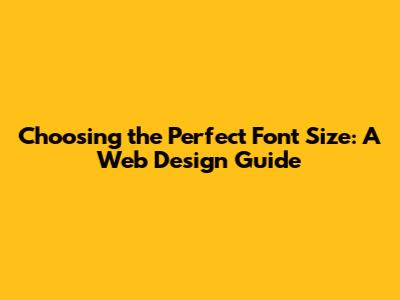
Hey there, web enthusiasts! Ever wondered about the best font size for website text? You're not alone! It's a crucial aspect of web design that directly impacts user experience and readability. Choosing the right font size isn't just about aesthetics; it's about making your website accessible, engaging, and easy to navigate. In this guide, we'll dive deep into the world of font sizes, exploring the factors that influence your choices and providing practical tips to ensure your website looks and feels amazing for everyone. Let's get started!
Why Font Size Matters: The Importance of Readability
Alright, guys, let's talk about why font size is such a big deal. The font size is critical for website text as it directly affects how easily your visitors can read and understand your content. Think about it: if the text is too small, users will strain their eyes, leading to frustration and a quick exit from your site. Conversely, if the text is too large, it can appear overwhelming and disrupt the visual flow of your page. The goal is to strike a balance, creating a comfortable reading experience that keeps your audience engaged. Font size directly impacts website readability.
Good readability is about more than just the size of the font, though. It also involves the font style, the amount of space between the lines (line height), and the space between individual letters (letter spacing). All of these combine to create the overall reading experience. When your website has good readability, the text is easy to scan, allowing visitors to quickly grasp the key information. This is particularly important in today's fast-paced digital world, where people often skim content rather than reading every word. If your text is easy to read, you'll improve user engagement, reduce bounce rates, and increase the likelihood of conversions. Furthermore, accessibility is a key factor. Websites should cater to visitors of all abilities, including those with visual impairments. Choosing an appropriate font size ensures that your website is inclusive and user-friendly for everyone. Remember, a website that prioritizes readability is a website that cares about its users. This focus will pay dividends in user satisfaction, search engine optimization (SEO), and ultimately, your website's success. It's not just about looking good; it's about making your content accessible, enjoyable, and effective.
The Impact on User Experience
Think about the last time you visited a website with tiny, hard-to-read text. Did you stick around, or did you bounce? User experience, or UX, is all about how people interact with your website. Font size is a foundational element of UX. When the font size is appropriate, it improves the overall UX. Large, easily readable text welcomes users, making them feel comfortable and encouraging them to explore your content. Poor font choices, such as using an overly small size or a difficult-to-read font, will quickly send users packing. The right font size helps guide the user's eye, making the content easy to scan and digest. This can lead to longer time on site, higher engagement, and better conversion rates. By prioritizing readability, you're essentially creating a more enjoyable and user-friendly experience, and a superior UX leads to positive brand perception and customer loyalty. It shows that you value your audience's time and are dedicated to providing a high-quality experience. On the other hand, the wrong font size can lead to eye strain, confusion, and a general feeling of frustration. This negative experience can drive users away, damaging your website's reputation and hurting your business goals.
Accessibility Considerations
Let's not forget about accessibility, another really important factor. Font size is also closely tied to website accessibility. Accessibility is about ensuring that your website is usable by everyone, including people with disabilities. Many people have visual impairments that make it difficult to read small text. By choosing an appropriate font size, you make your website accessible to a wider audience. This is not only the right thing to do ethically but it can also expand your reach and improve your SEO. Providing options for users to adjust the text size is another great idea. This can be as simple as allowing users to zoom in or providing a custom text size setting in your website's design. This ensures that users with different needs can easily customize the website to their preference. Accessibility is more than just a box to check; it is an important part of creating a truly inclusive and user-friendly website. You'll make your content available to a wider audience, improve user satisfaction, and uphold the principles of web inclusivity.
The Ideal Font Size: Best Practices and Recommendations
So, what's the magic number when it comes to the ideal font size for website text? While there isn't a one-size-fits-all answer, there are general best practices and recommendations that can guide your choices. The perfect font size depends on many factors, like the style of the font, the content, and the type of device your visitors use. The most commonly recommended size for body text is 16 pixels (px). This is a good starting point because it's generally readable on most devices without being too small or too large. However, there's a lot to consider. Let's delve in.
Body Text: 16px as a Starting Point
As previously mentioned, 16px is a widely accepted standard for body text. 16px font size is good for website readability. This is because it provides a good balance between readability and efficient use of space. It's large enough to be easily read by most users without requiring them to zoom in, while still allowing enough text to fit on the screen without excessive scrolling. This size is usually suitable for the main content paragraphs of your website. Keep in mind that this is just a starting point, and you may need to adjust the size slightly based on the font you choose. Some fonts appear smaller or larger than others at the same pixel size. Remember that the goal is to make your content as accessible and enjoyable to read as possible.
Headings: Establishing Hierarchy
Headings play a vital role in organizing your content and guiding the reader's eye. Using different sizes for your headings helps establish a clear visual hierarchy, making it easy for users to scan the page and quickly find the information they are looking for. Use heading to optimize your font size. For example, your H1 (main heading) might be around 24-32px, while H2 (subheadings) could be 18-24px, and H3 (further subheadings) could be 16-18px. The exact sizes will depend on the overall design and layout of your website. The goal is to create a clear and logical structure that makes your content easy to understand and navigate. Experiment with different sizes to find what looks best for your website. The consistency of font sizes across all pages will help improve overall usability. You want to make sure the structure is correct, so users can enjoy your content.
Mobile Considerations: Responsive Design
In today's mobile-first world, it's essential to consider how your website looks and functions on different devices. This is where responsive design comes in. Font size on different devices is critical. Responsive design ensures that your website adapts to different screen sizes, providing an optimal viewing experience for all users. When designing for mobile devices, you may need to increase your font sizes slightly to ensure readability on smaller screens. Using relative units like percentages (%) or ems instead of fixed pixel values can help your text scale more smoothly across devices. This will ensure that your font sizes are automatically adjusted based on the screen size. Test your website on various devices to ensure that the font sizes are readable and visually appealing. Testing is critical for checking out font sizes. With responsive design, you can ensure that your website looks great on any device.
Choosing the Right Units: Pixels, Ems, and Rems
Understanding the different units of measurement for font sizes is key to making informed decisions. There are three main options: pixels (px), ems (em), and rems (rem). Let's take a closer look at each one.
Pixels (px): Fixed and Simple
Pixels are the most straightforward unit, representing a fixed number of pixels on the screen. While easy to understand and implement, pixels have some limitations. Using pixels for font size has pros and cons. Pixels are not responsive. They don't scale well across different devices. If you set your body text to 16px, it will always appear as 16 pixels, regardless of the screen size. This can lead to readability issues on smaller screens. However, pixels are a good choice for headings, which may not need to scale dynamically. Use them for consistent formatting for headings.
Ems (em): Relative to Parent Element
Ems are a relative unit, meaning their size is relative to the font size of the parent element. For example, if the parent element has a font size of 16px, 1em would equal 16px. Ems is relative to the font size of the parent element. Ems allow your font sizes to scale proportionally, which is great for responsive design. However, they can sometimes be tricky to manage. If the parent element's font size is changed, all the em values within that element will also change, which might require some adjustments. Because ems are relative, they help text size scale proportionally, which is perfect for designing websites that adapt to different screen sizes. This flexibility makes them a good choice for responsive design. Keep in mind that they are relative to the font size of their parent element, which may require careful planning when applying them.
Rems (rem): Relative to Root Element
Rems, like ems, are a relative unit, but they are relative to the root (html) element's font size. This makes rems a bit easier to manage than ems, as the size of the font is set in one place (the html element), and the rem values are based on that. Rems help you easily manage font size across your entire website. If you change the font size of the root element, all rem values will update accordingly. This can be great if you want to make global changes to your website's typography. Rems are often considered the best choice for responsive design. They provide a balance of flexibility and ease of management. They allow you to scale your font sizes easily and consistently across different devices. Using rems for font sizes enables you to create a more consistent and adaptable design. It also simplifies the process of making global changes to your typography. You can control your website's font size by changing the size of the root element.
Font Pairings: Selecting Readable and Compatible Fonts
Choosing the right font is important, but how you pair fonts together is equally important. Pairing fonts involves selecting fonts that complement each other, creating a visually appealing and readable experience for your users. Good font pairings are important for your website.
Serif vs. Sans-Serif
Serif fonts have small strokes or